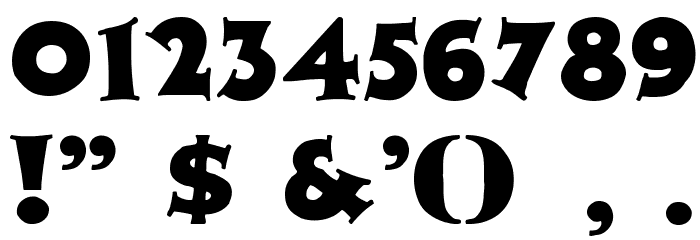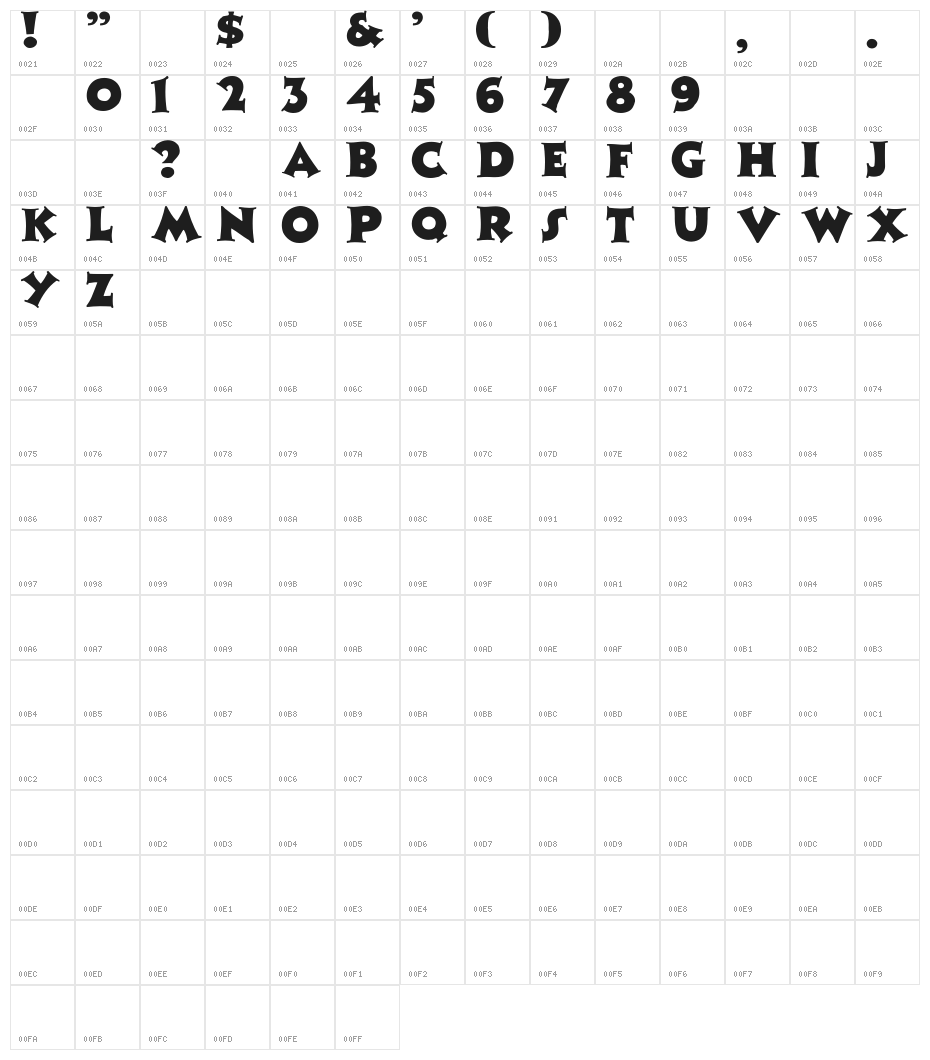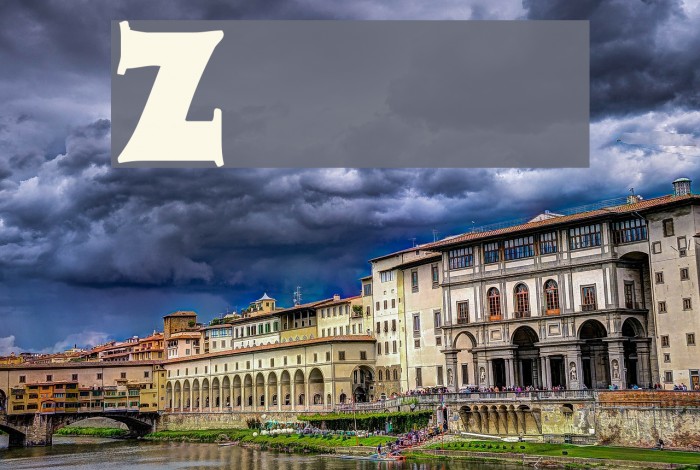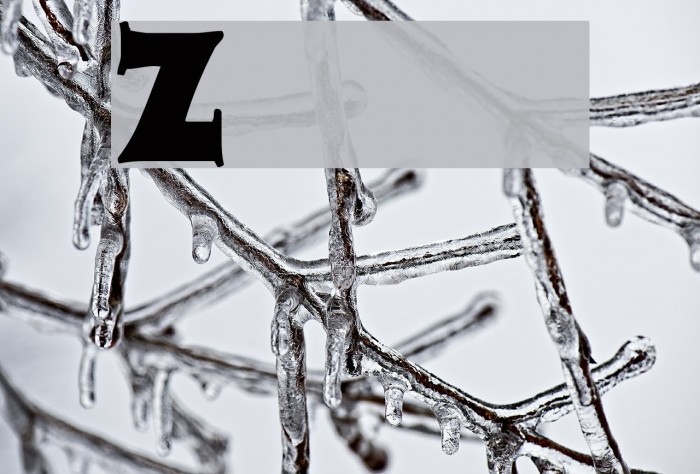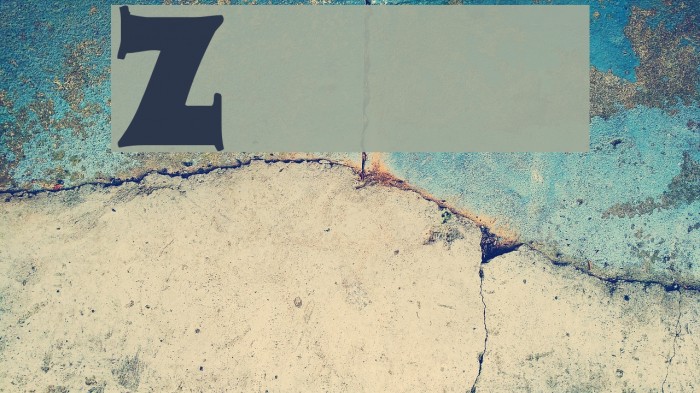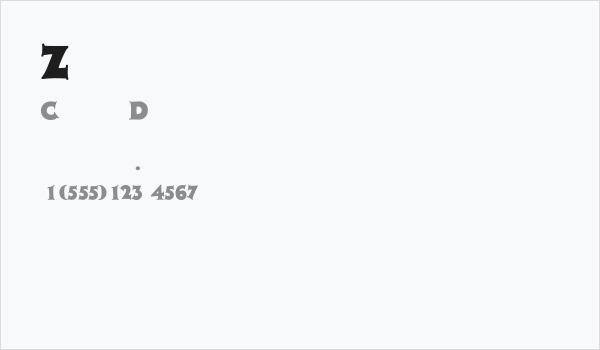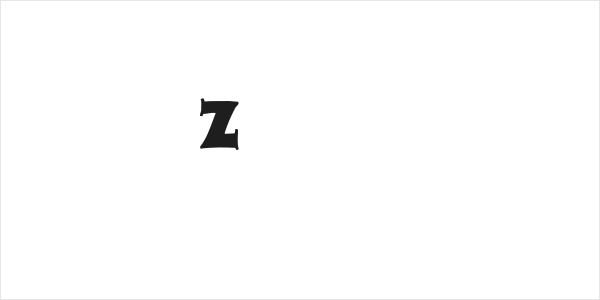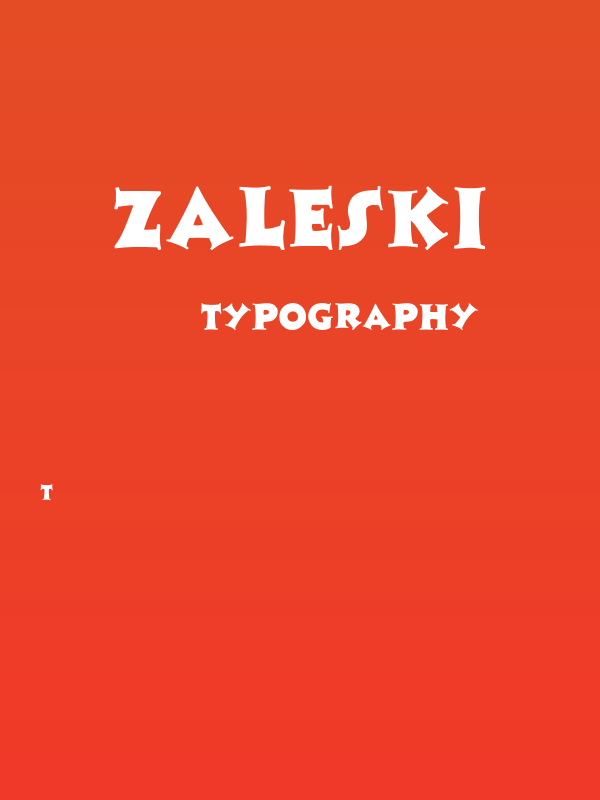
Zaleski Font
Zaleski Description
This font features a bold and dynamic style with a strong presence. The uppercase letters are characterized by sharp, angular serifs and a slightly condensed form, giving them a dramatic and impactful look. The lowercase letters maintain the same boldness, with a consistent stroke weight that enhances readability. The numbers are equally bold, with a unique style that complements the overall design. Special characters are well-integrated, maintaining the font's cohesive appearance. This font's distinct personality makes it suitable for attention-grabbing designs.
| Proposed Projects | Ideal for posters, logos, and headlines that require a bold statement. |